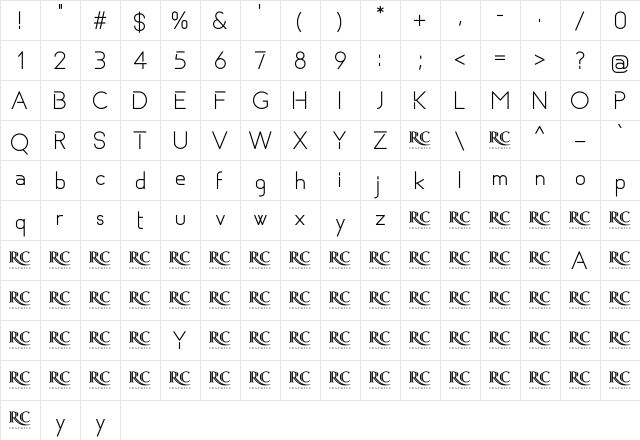
Basicaline Regular
| Designer | Robin Campistron |
Design Context for Basicaline Typeface
Basicaline takes a measured approach to typography — its balanced proportions and neutral character make it a reliable workhorse for both digital and print work.